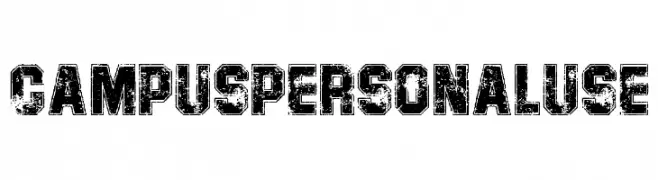
A bold, distressed serif font with a vintage, grunge aesthetic.
A bold, distressed font with a rugged, vintage appearance.
A rugged, distressed font with a bold, grungy texture and irregular edges.
A bold, distressed font with a grunge texture and vintage appeal.
A bold, distressed font with a vintage, industrial aesthetic.